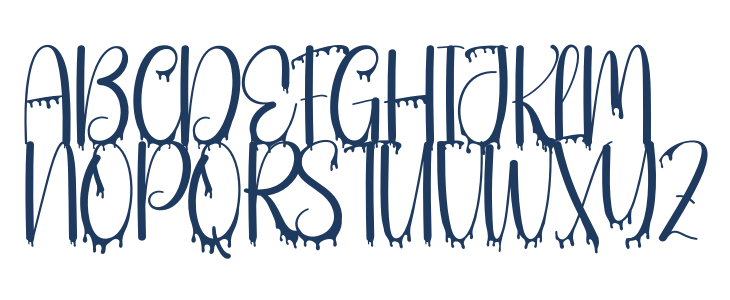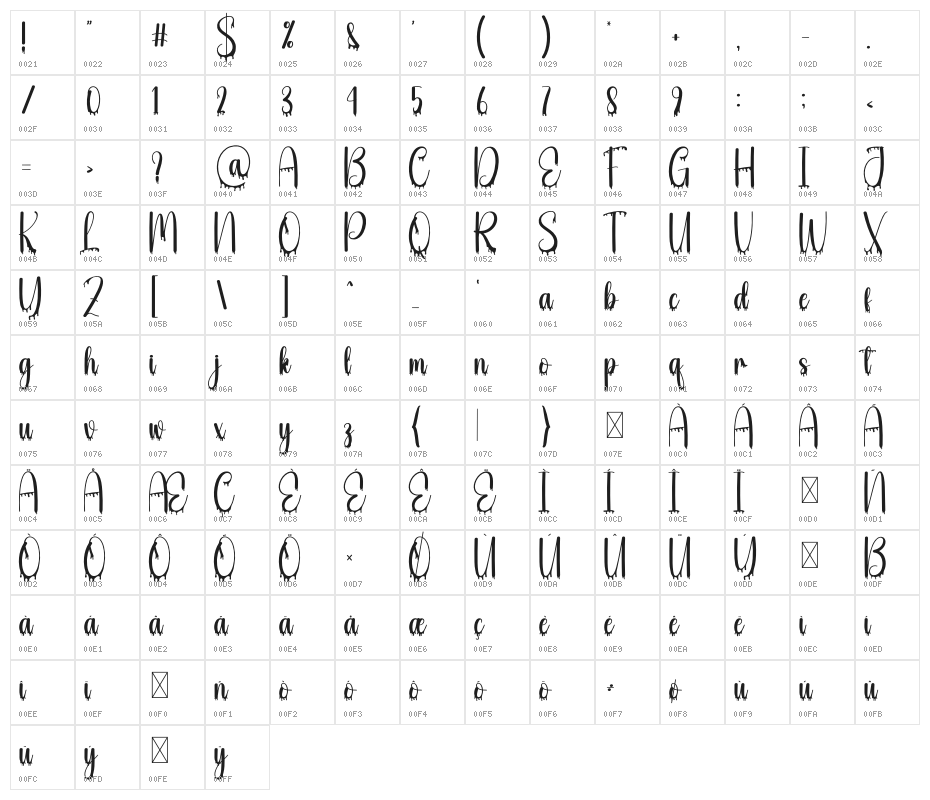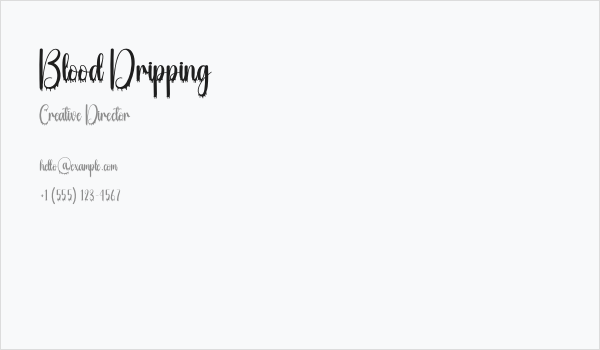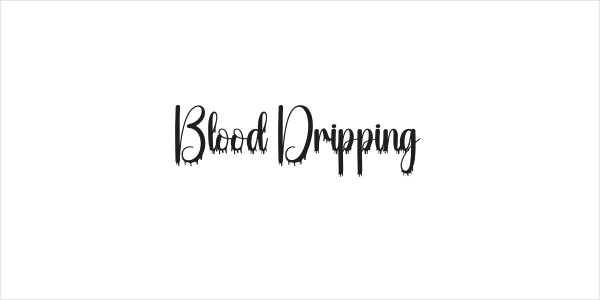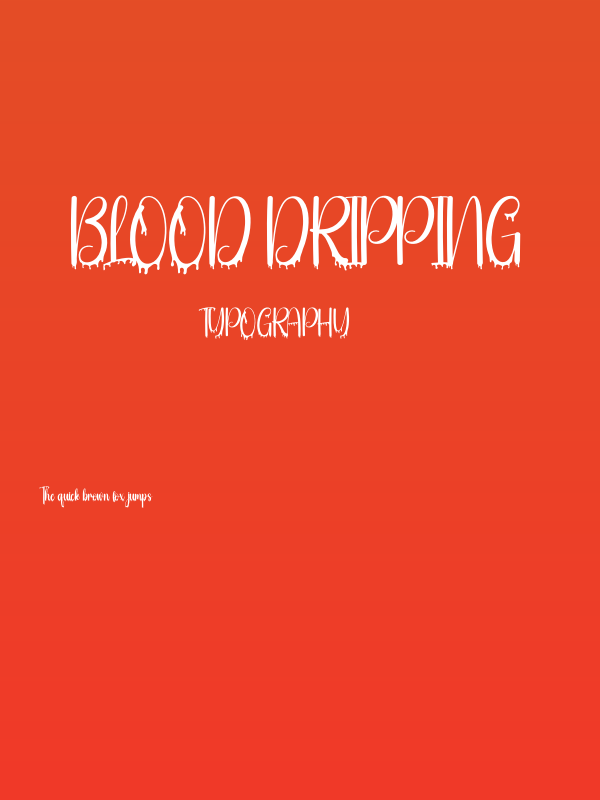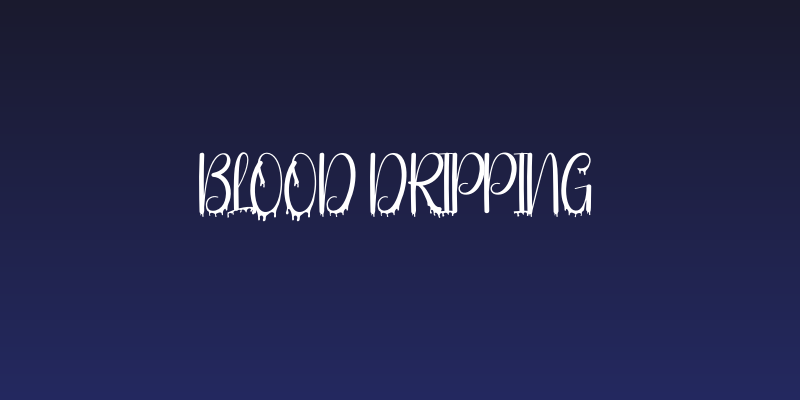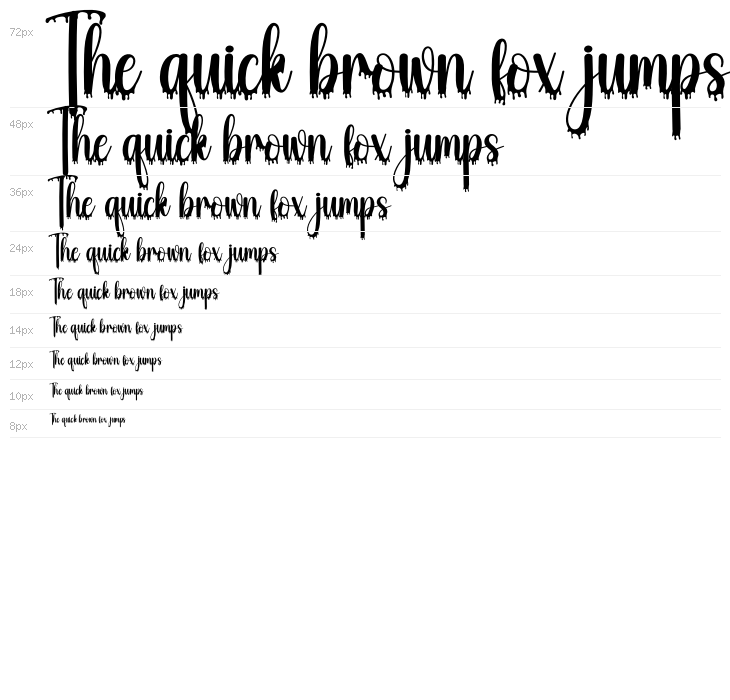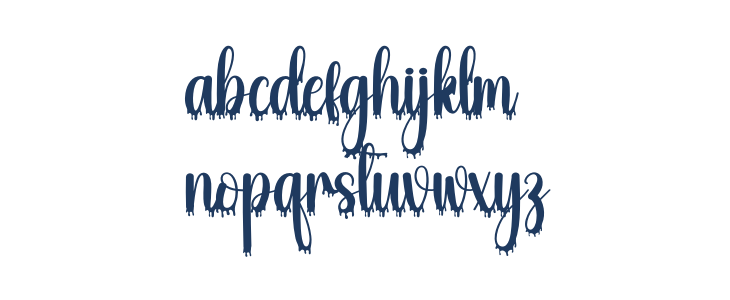
Blood Dripping Font
Blood Dripping Description
A decorative display font featuring tall, narrow letterforms with dripping effects at the bottom, mimicking the appearance of liquid or blood. The strokes are mostly monoline with playful, irregular drips, giving it a spooky and dramatic look.
| Overall Style | Decorative, Spooky, Playful |
| Use Case | Headlines, Posters, Themed Logos |
| Proposed Projects | Halloween posters, horror movie titles, party invitations, themed event branding, spooky merchandise. |